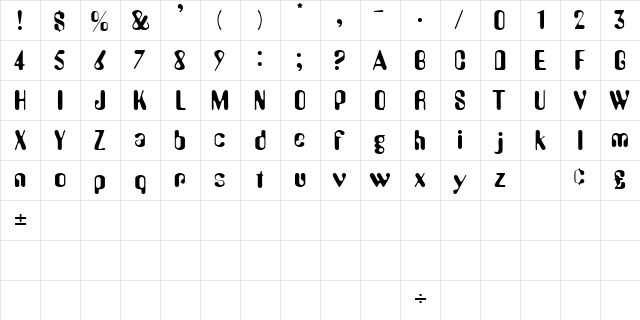
PerkleDisplaySSK Regular
Design Context for PerkleDisplaySSK Typeface
PerkleDisplaySSK brings ornamental detail and strong personality to headlines and identities, where visual impact matters more than quiet functionality.
Font Pairing: Pair with a clean neutral sans-serif for body copy to let PerkleDisplaySSK's character lead without overwhelming the composition.
Pro Tip: Treat PerkleDisplaySSK as the centrepiece of your typographic hierarchy. One strong heading set in a decorative face can carry an entire layout.